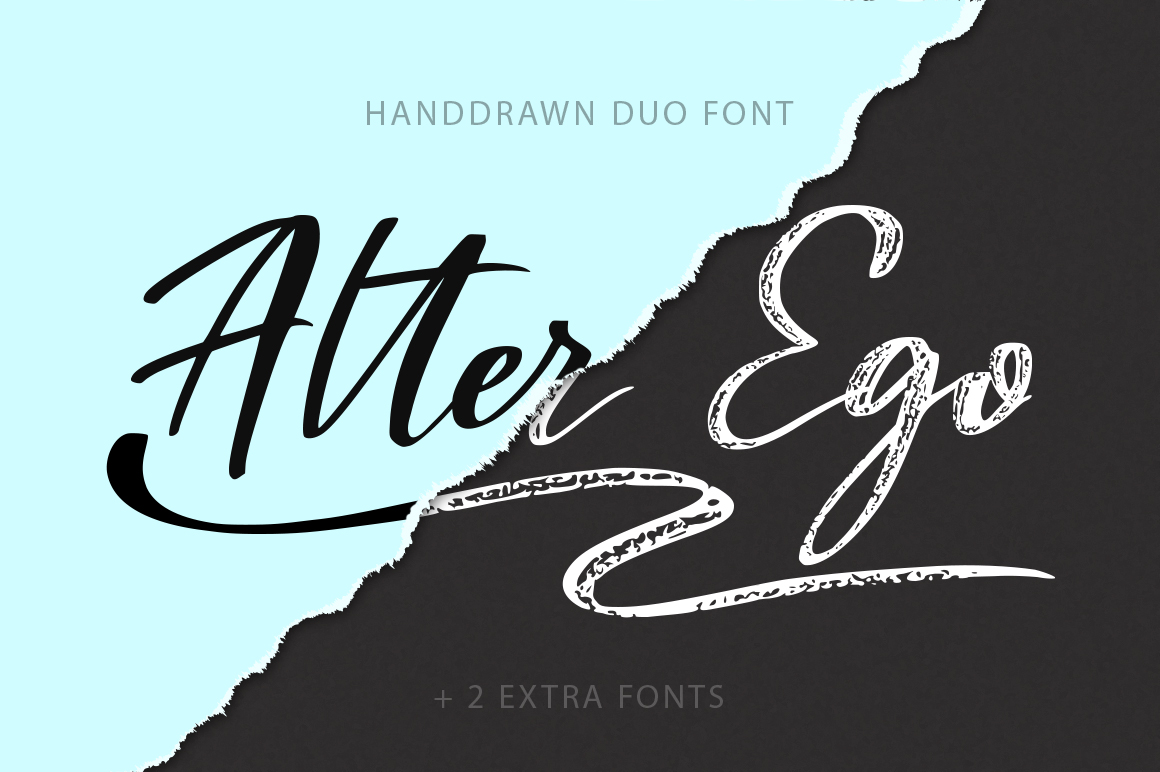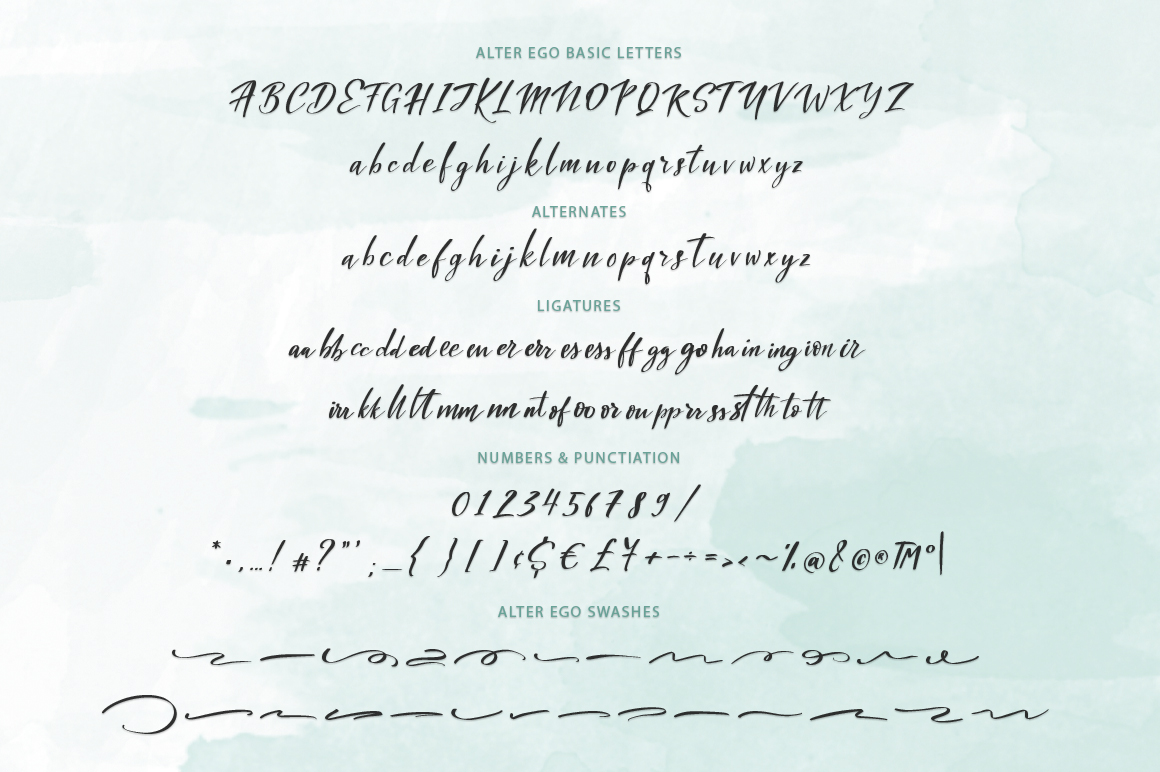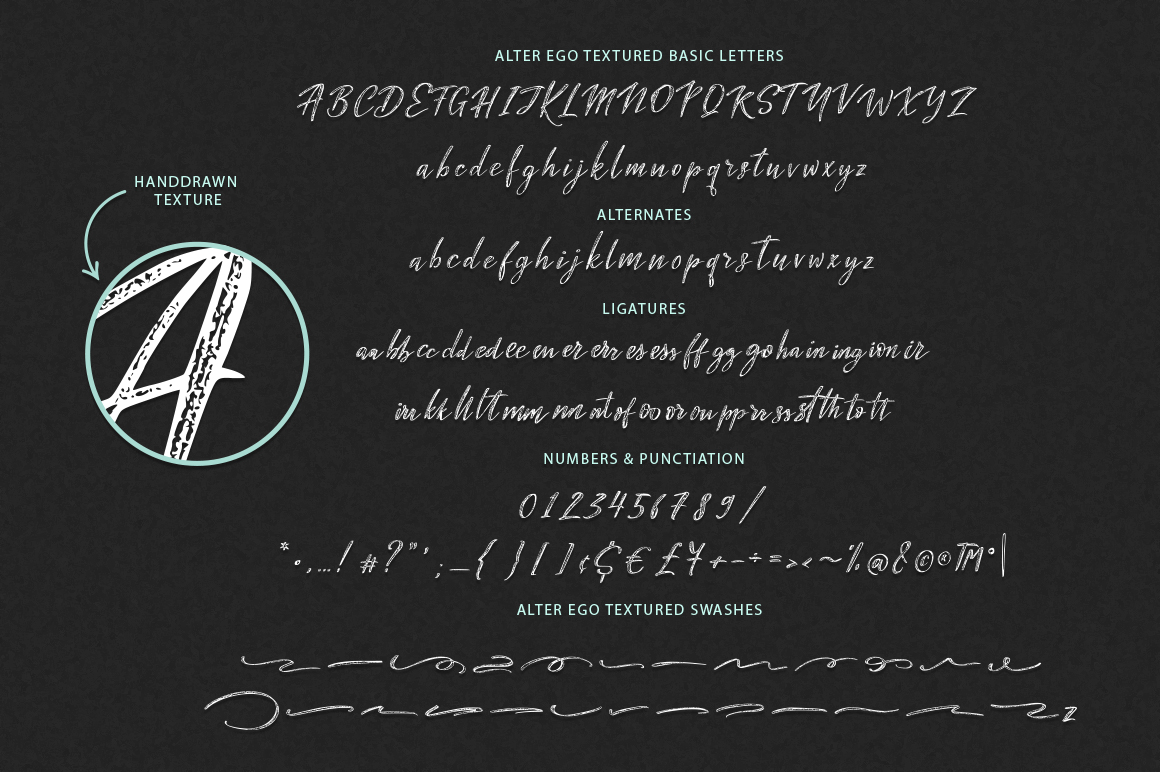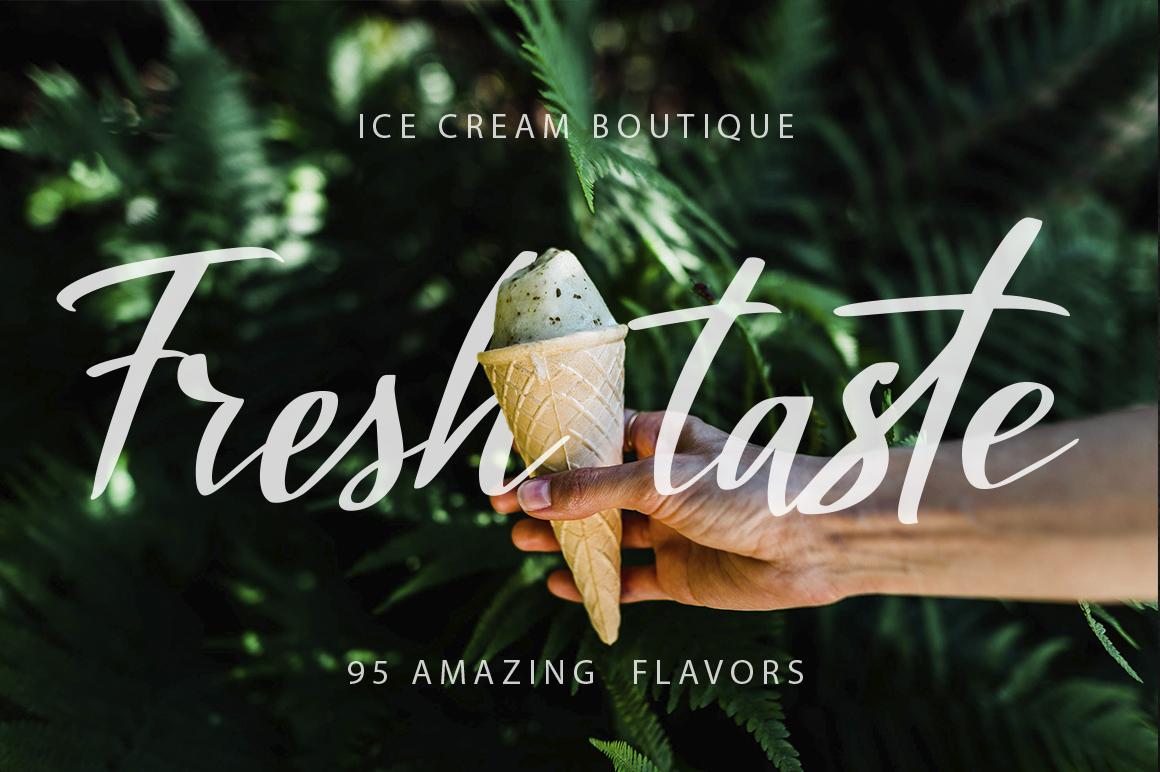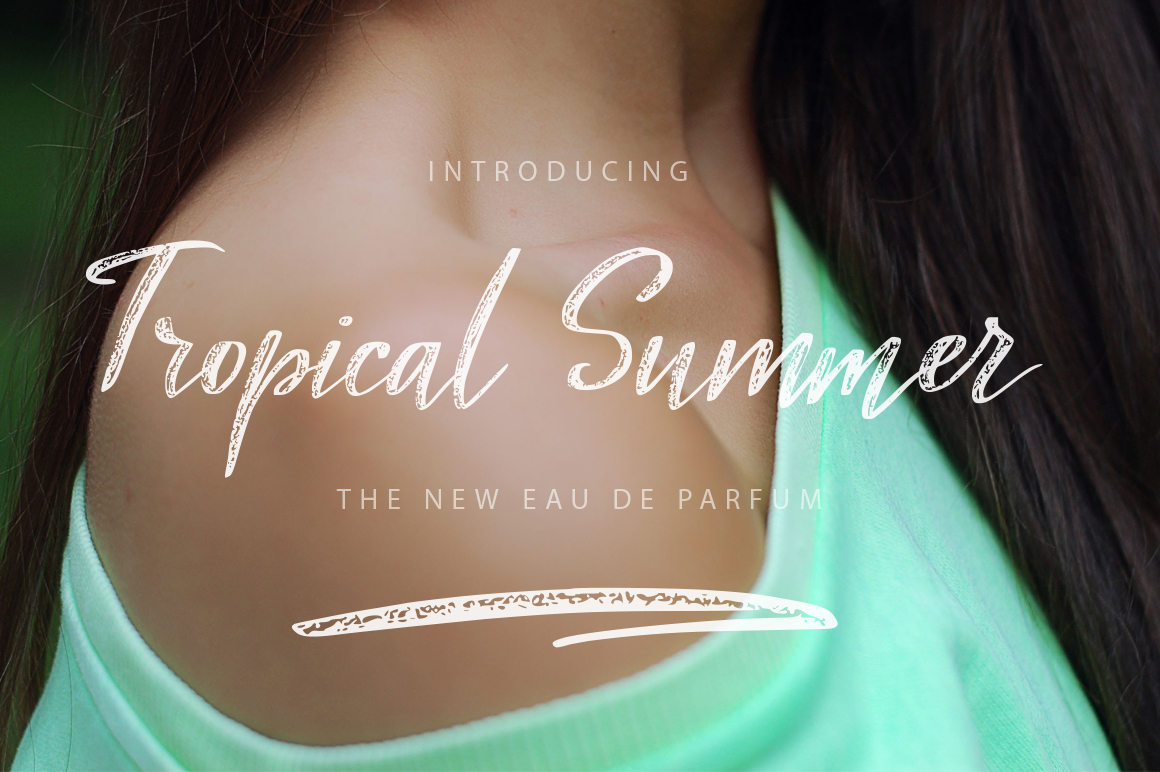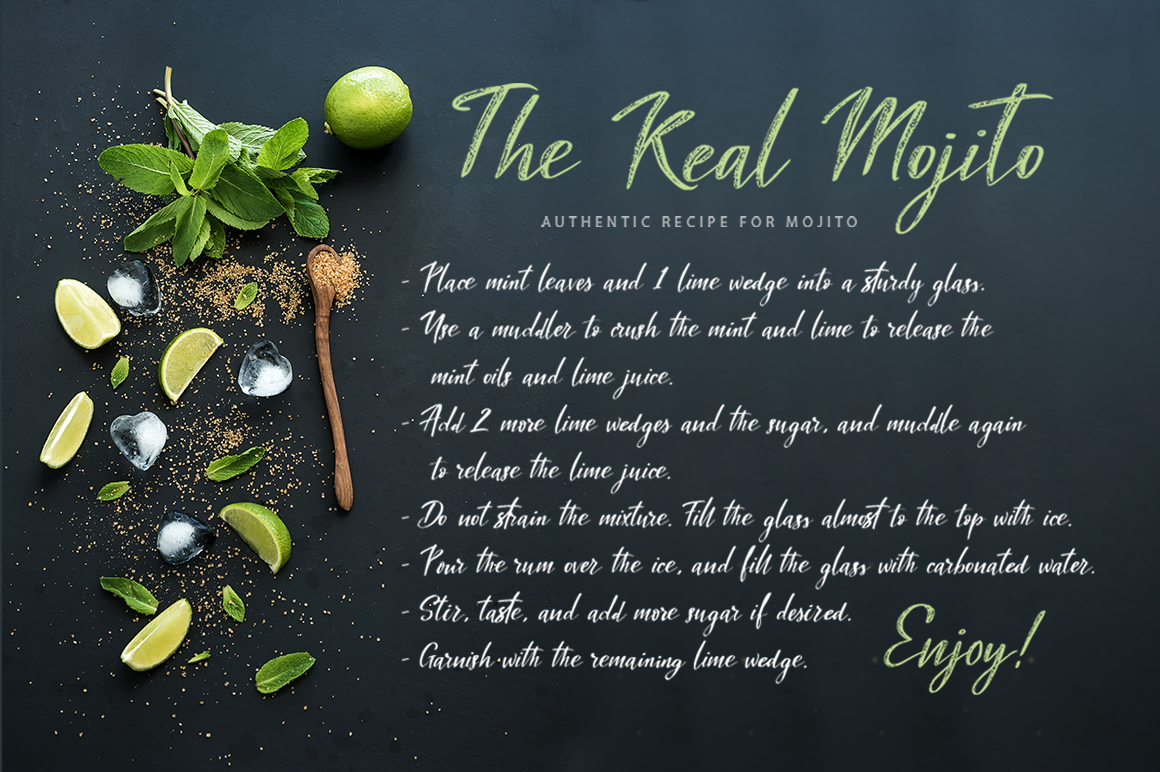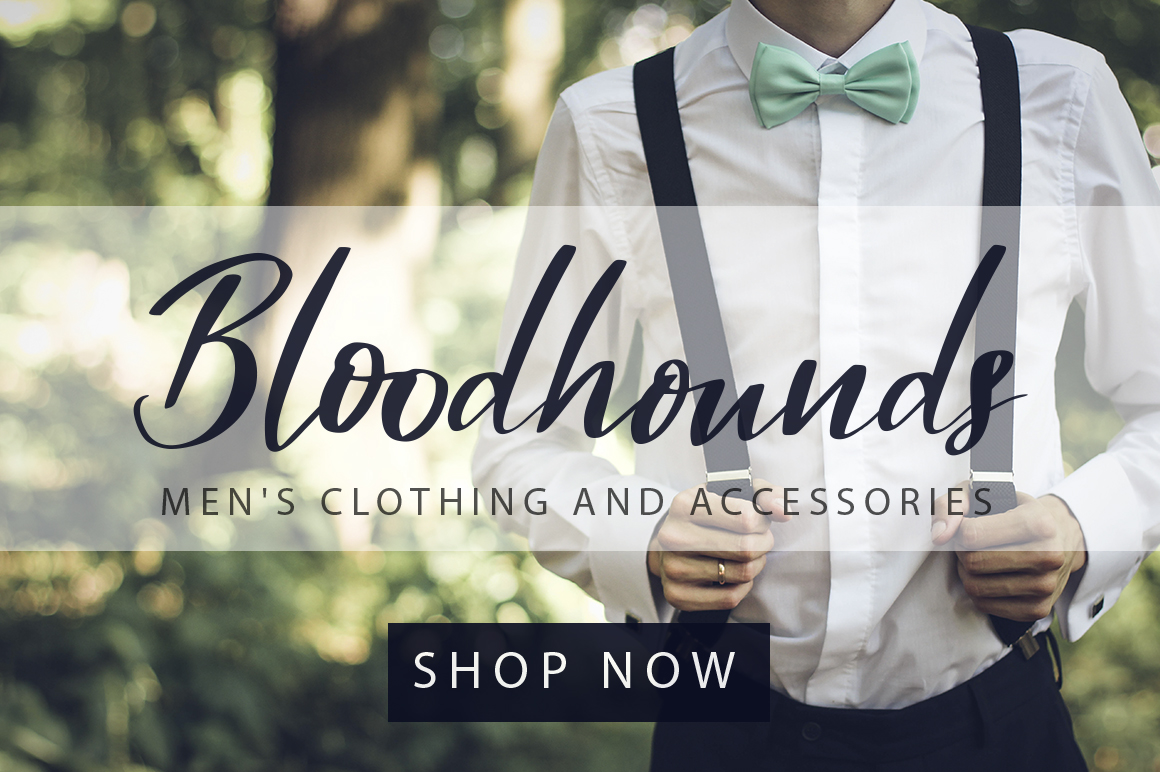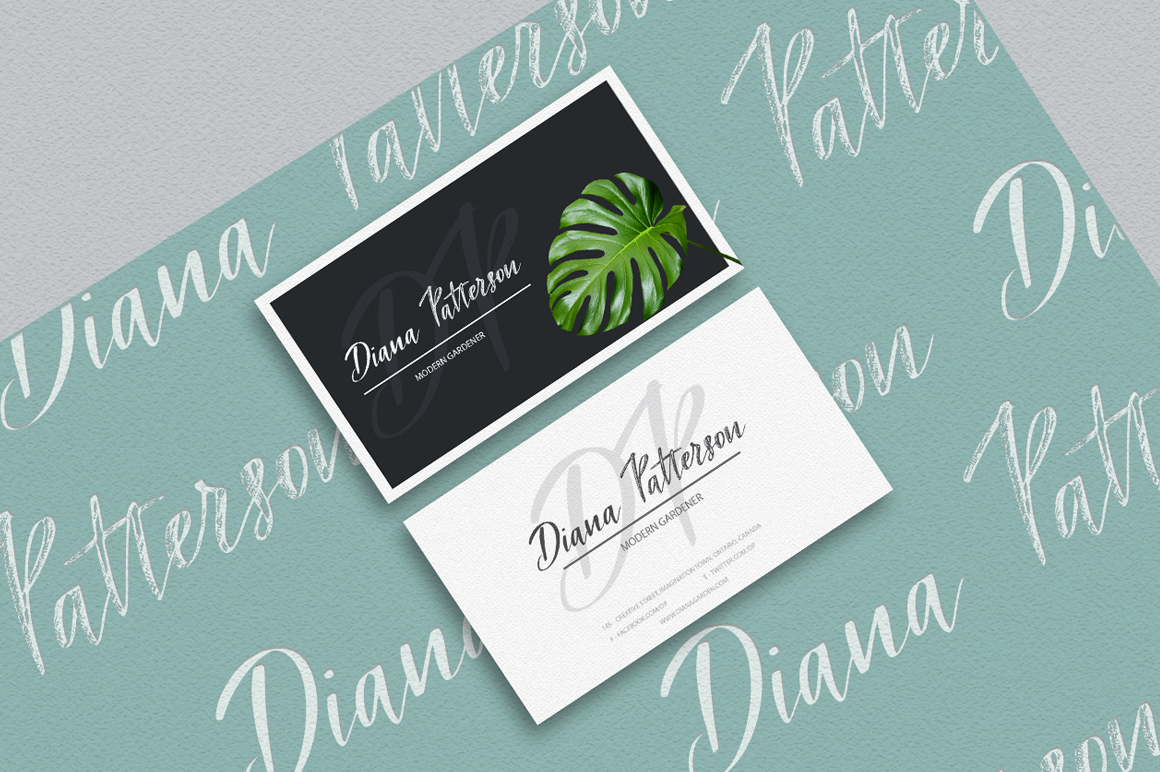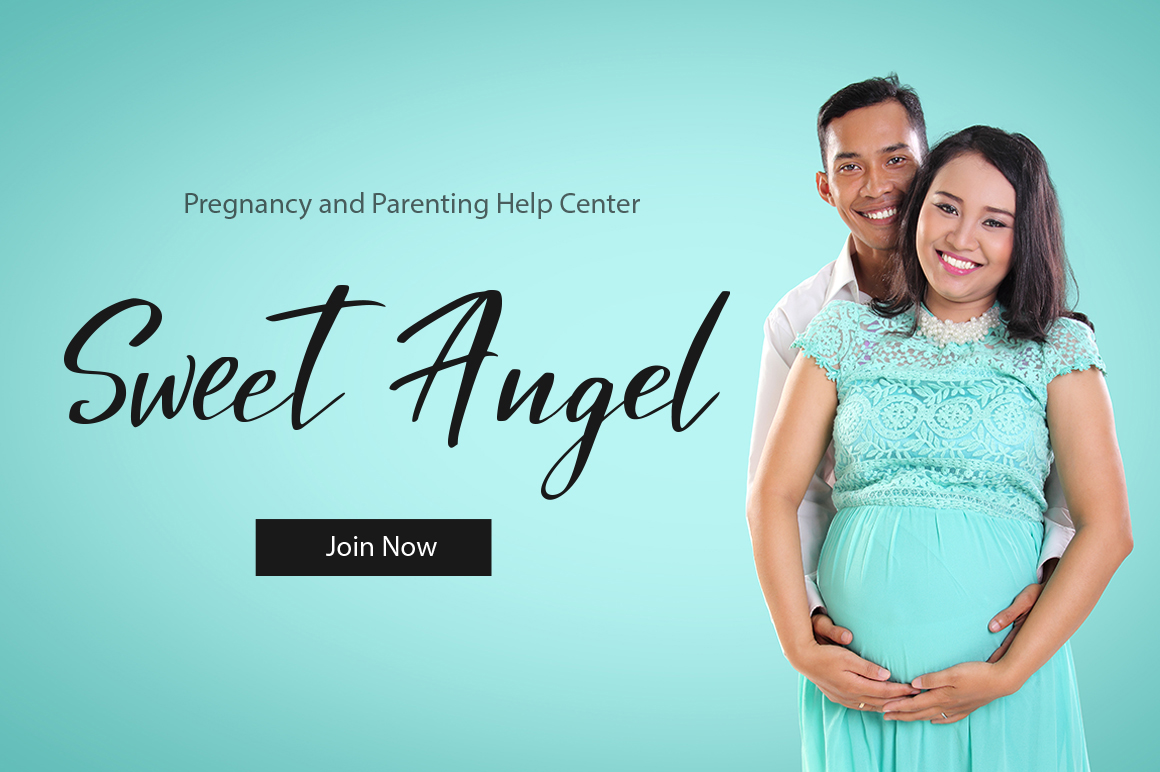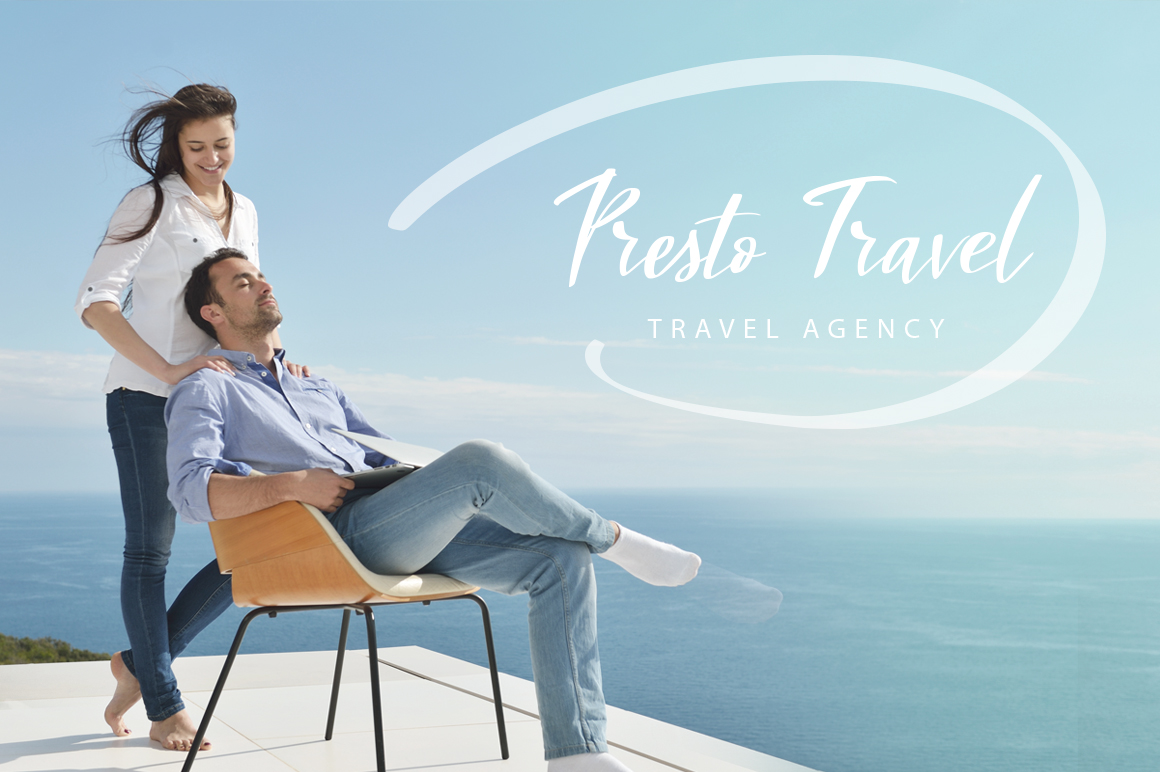
Alter Ego Duo Font
About Alter Ego Duo Font
Alter Ego comes with two amazing fonts in clean and textured versions. Casual styling and large amounts of alternatives are guaranteed to give your typographic needs a personal, light, and custom made feel.